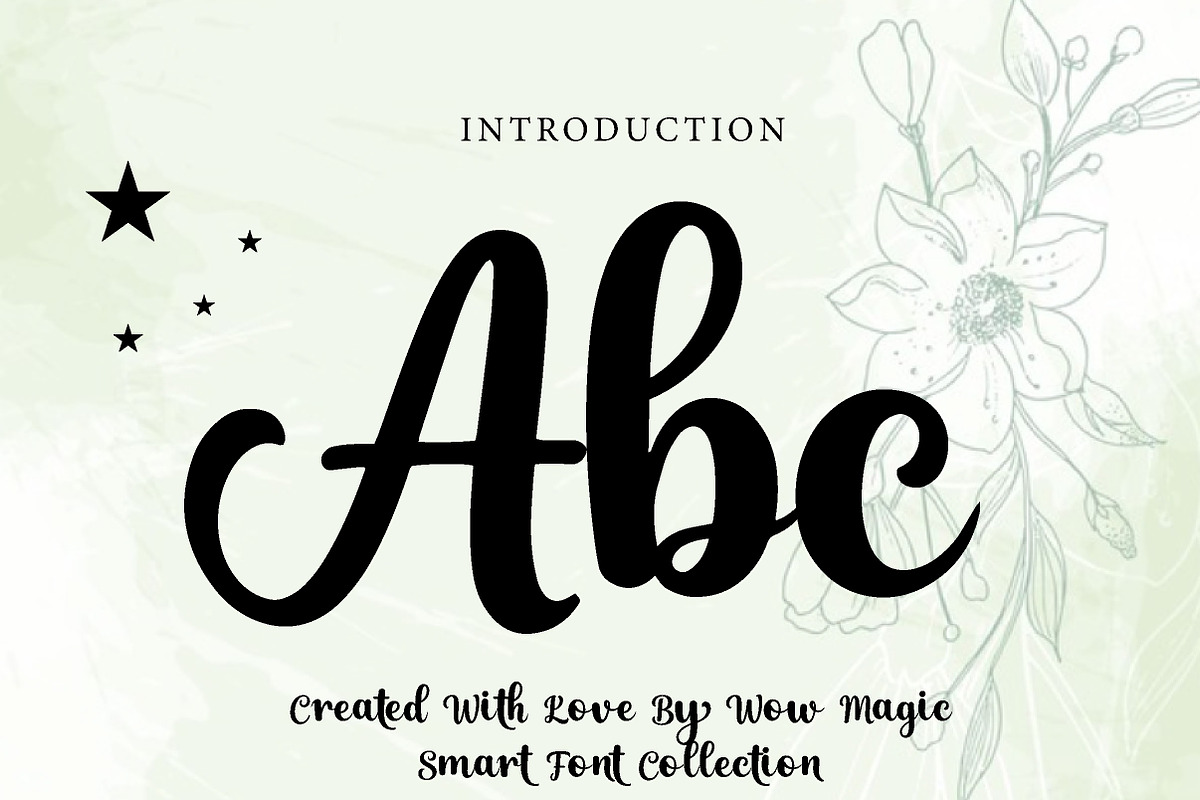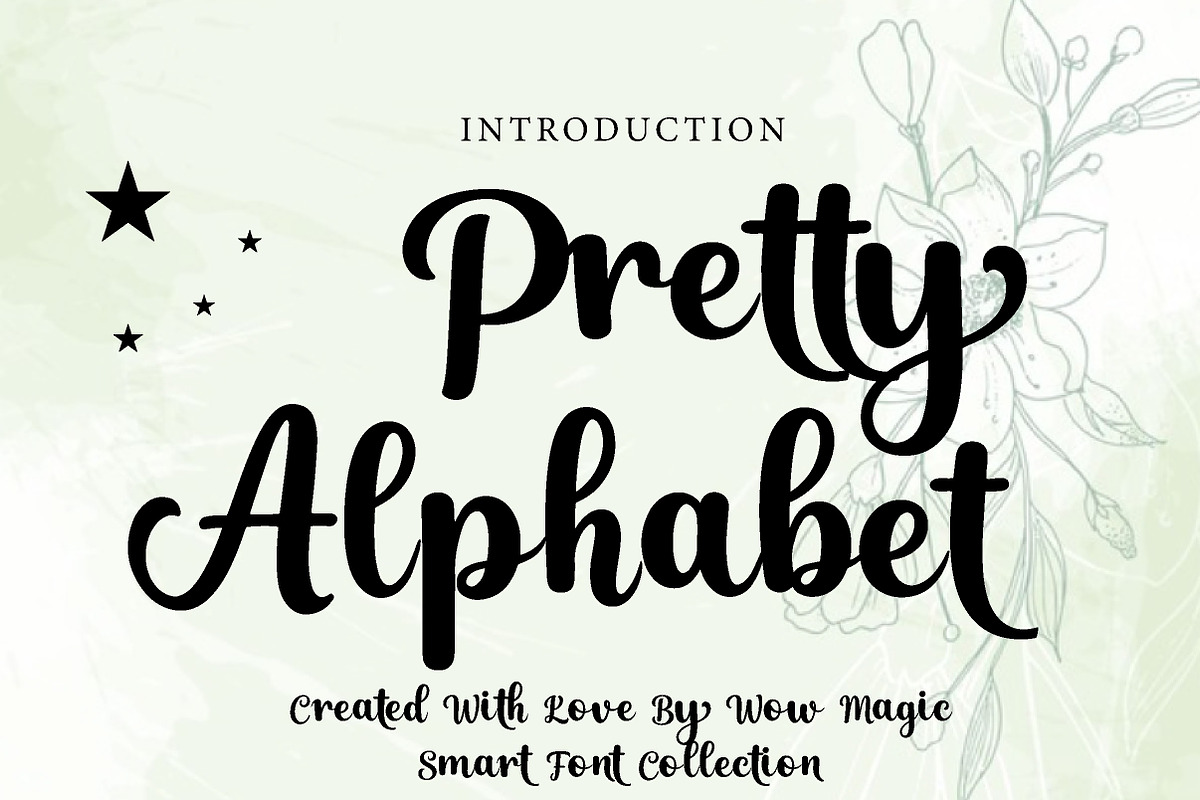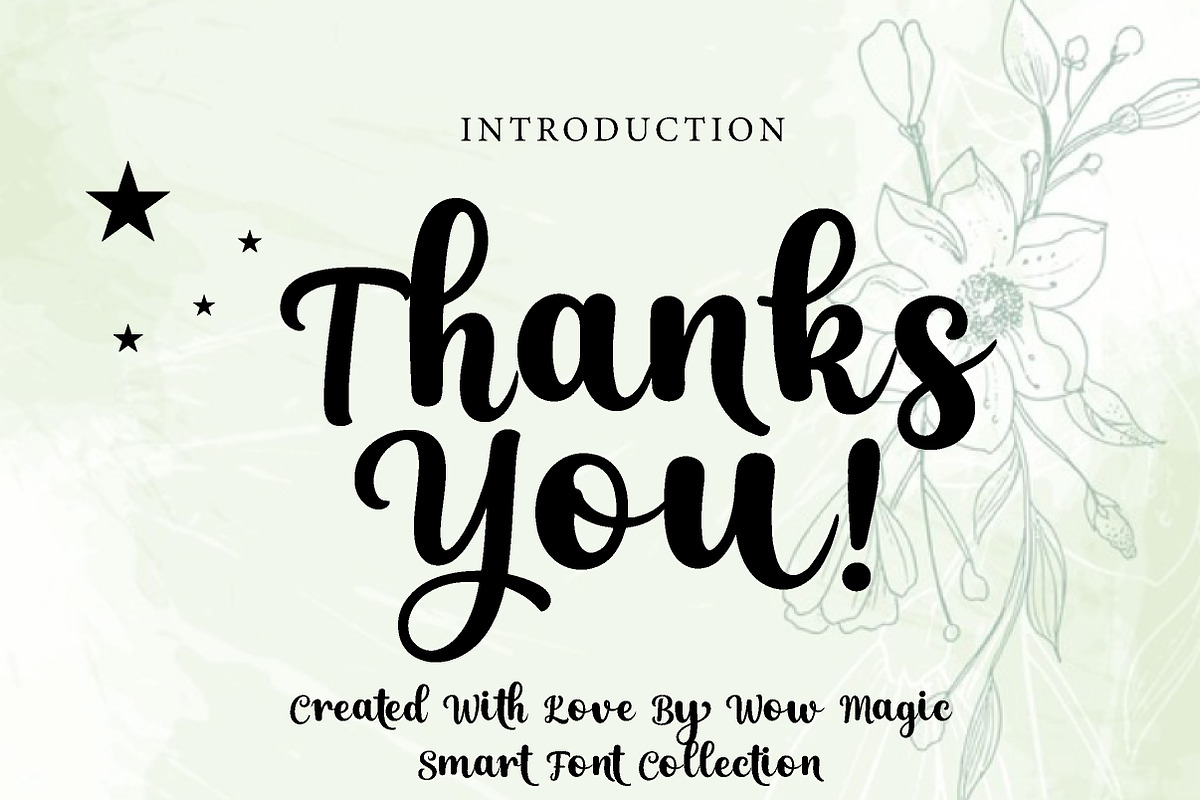
Pretty Alphabet
Pretty Alphabet – Elegant Script Font
Pretty Alphabet is an elegant, smooth, and stylish script font, perfect for branding, invitations, logos, packaging, and feminine creative projects.
Pretty Alphabet is a beautiful script font designed to bring elegance, charm, and sophistication into your designs. With its flowing strokes, graceful curves, and stylish handwritten character, this font creates a refined and eye-catching look that feels both modern and timeless.
Its elegant script style makes Pretty Alphabet perfect for projects that need a soft and luxurious touch. Whether you are designing branding materials, wedding invitations, product packaging, social media graphics, beauty logos, greeting cards, or stylish quotes, this font helps your typography stand out with grace and personality.
The smooth flowing letterforms give your text a natural handwritten feel while maintaining a polished and professional appearance. Suitable for both digital and print use, Pretty Alphabet is a wonderful choice for designers who want a font that feels classy, feminine, and memorable.
Perfect For Branding and logos Wedding invitations Product packaging Social media graphics Beauty and fashion projects Greeting cards Quotes and typography Website headers Feminine stationery Elegant creative projects Font Features Uppercase letters Lowercase letters Numbers & punctuation Elegant script style Smooth and flowing strokes Feminine and stylish look Perfect for display and branding use